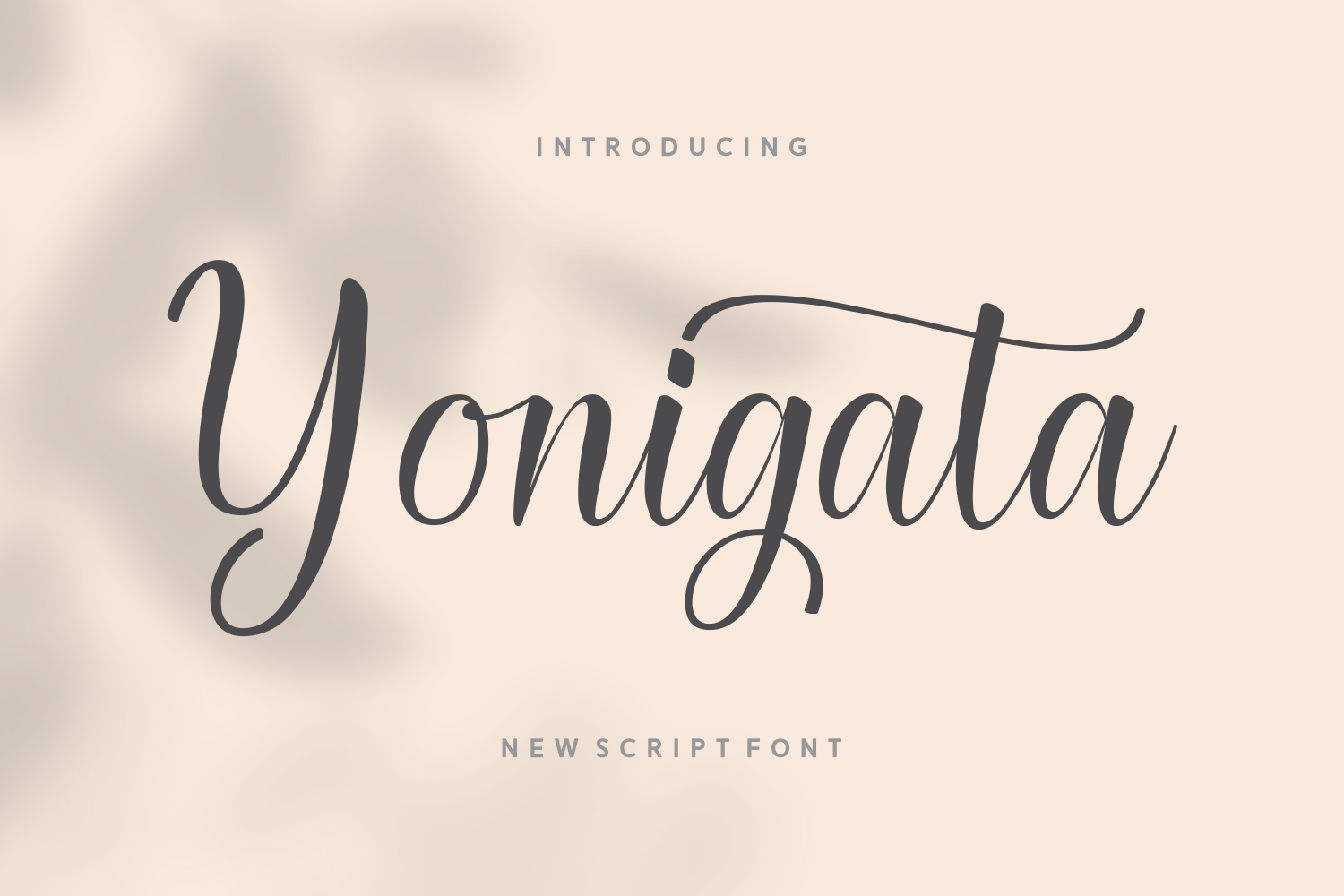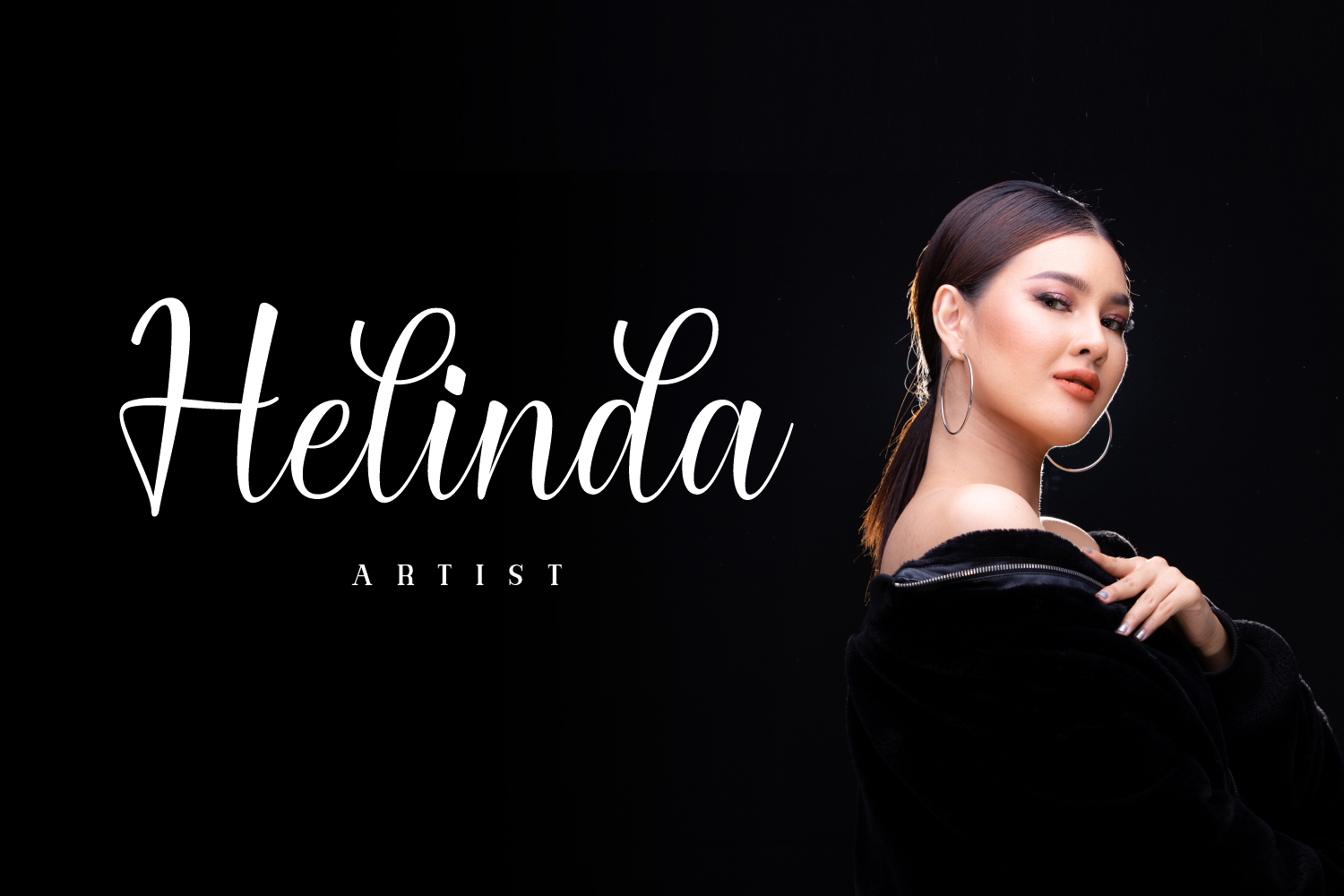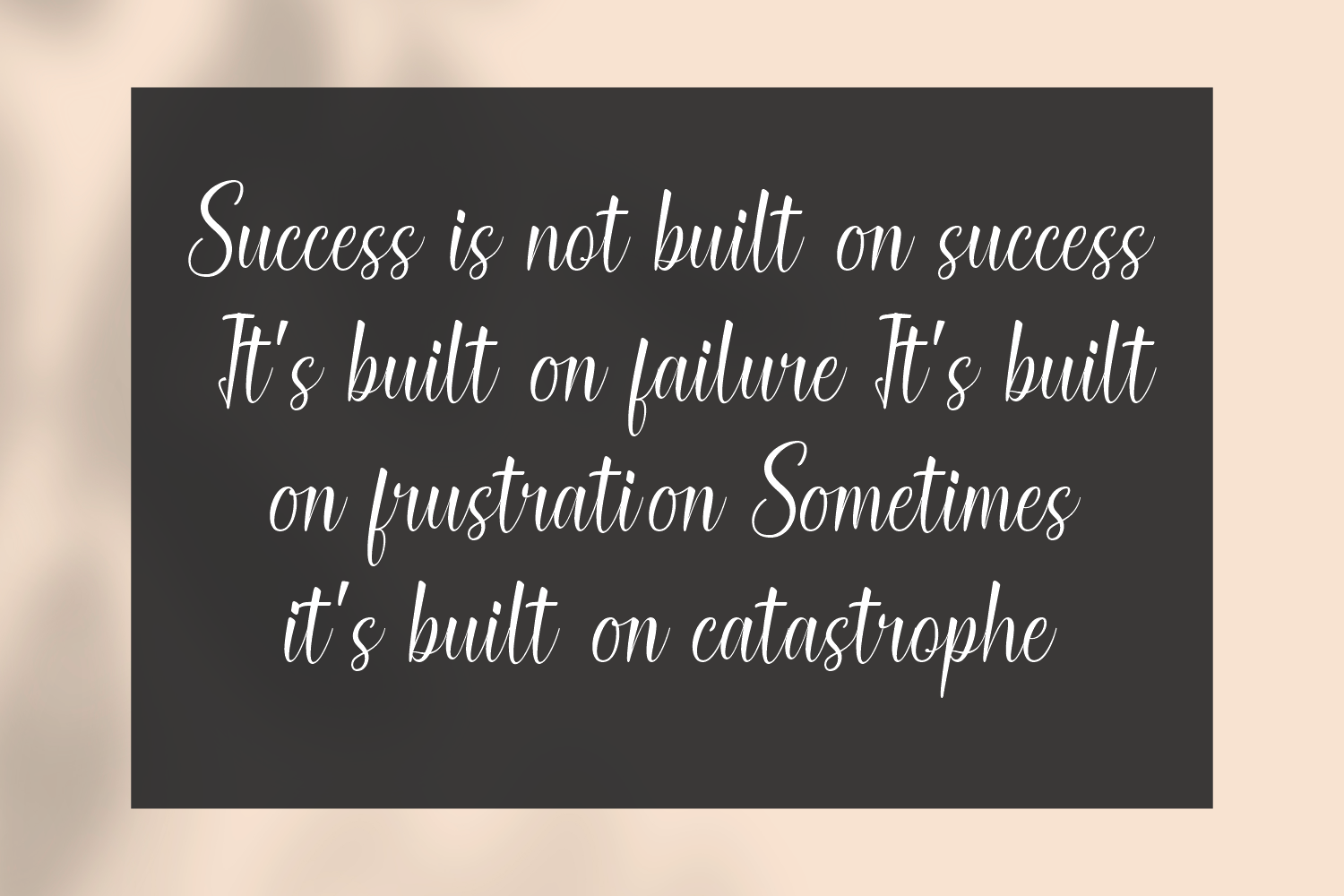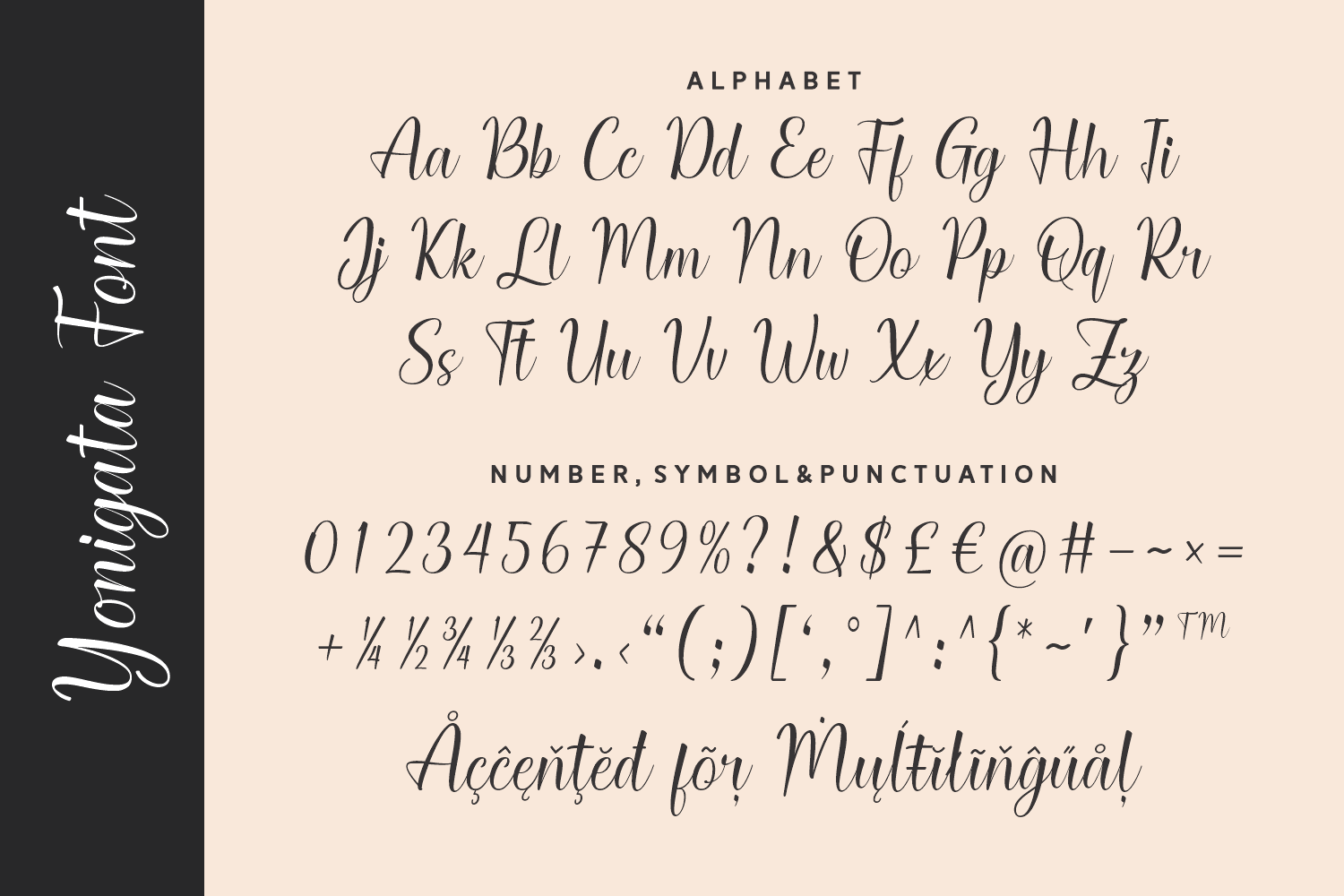
Yonigata is a sophisticated new script font with a delicate, modern edge. Its elegant strokes are ideal for branding, stationery, and beauty-related content.
The font’s refined letterforms and subtle flourishes create a graceful rhythm that feels both contemporary and timeless. Whether used in logos, blog headers, or product packaging, Yonigata adds a soft, polished touch to your visuals.